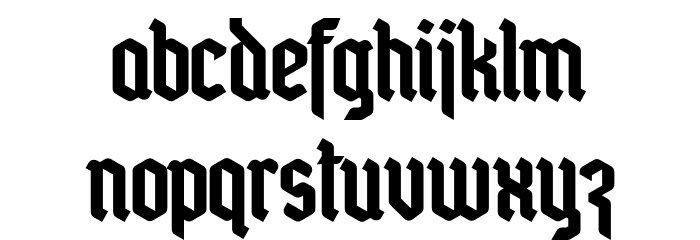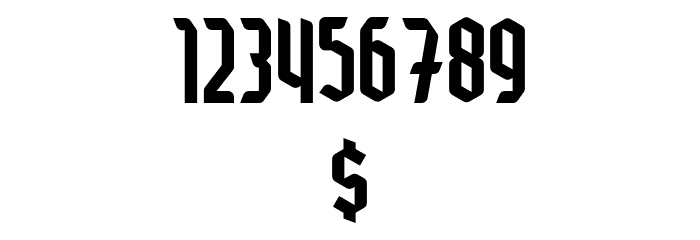
Mordova DEMO Font
This font features a bold, angular design reminiscent of traditional blackletter styles. The characters are sharply defined with a strong vertical emphasis, giving it a commanding presence. The uppercase and lowercase letters maintain a consistent style, with intricate details that enhance its decorative appeal. The numerals and special characters are equally stylized, ensuring uniformity across all glyphs. This font's historical aesthetic is balanced with a modern touch, making it versatile for various design applications.
A bold, angular blackletter-style font with a modern twist.
- Proposed Projects: Ideal for projects that require a historical or gothic touch, such as event posters, book covers, or branding for vintage-themed products.
- Category: Blackletter
- Overall Style: Vintage
- Use Case: Headlines, Logos, Decorative text